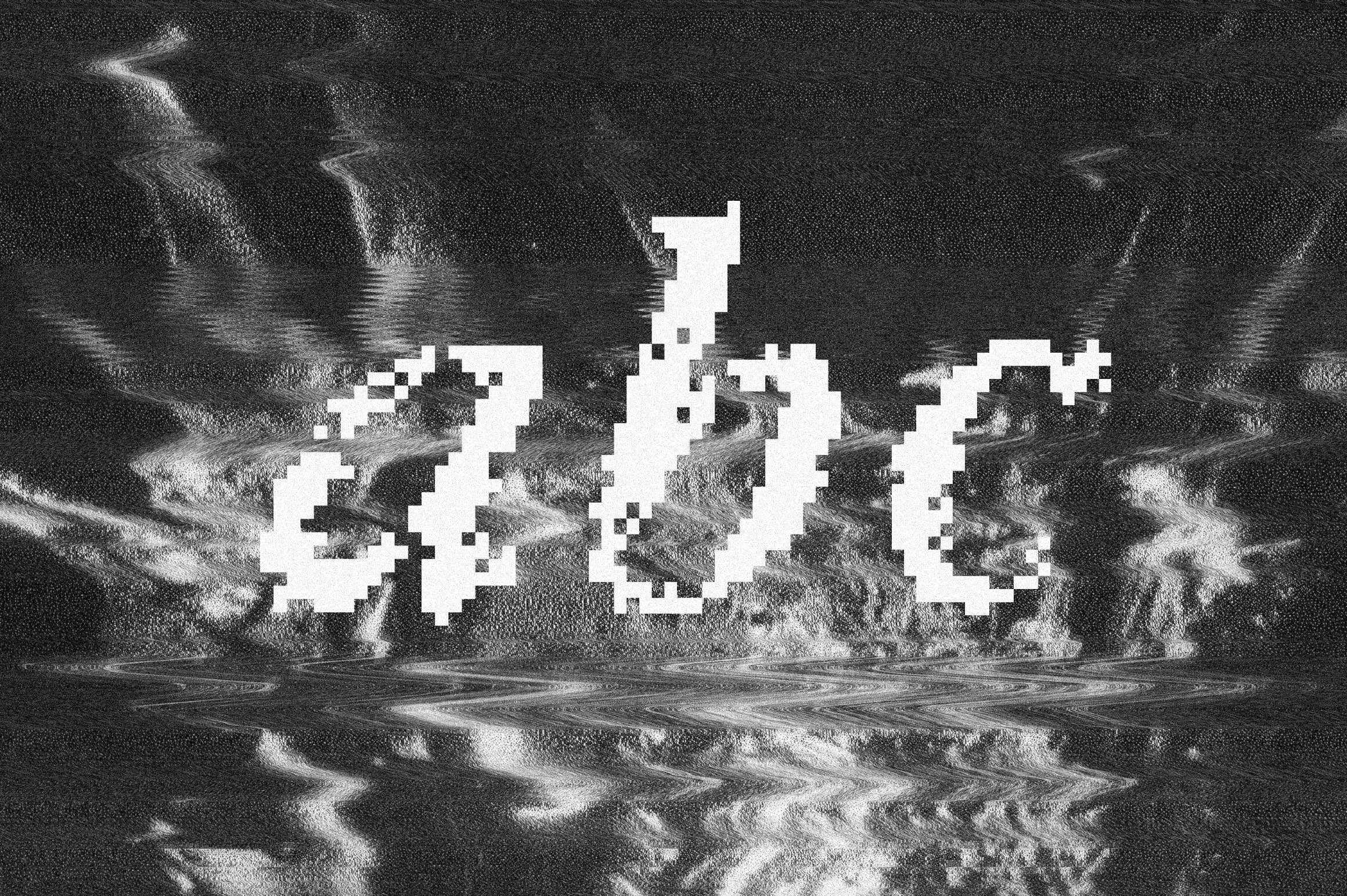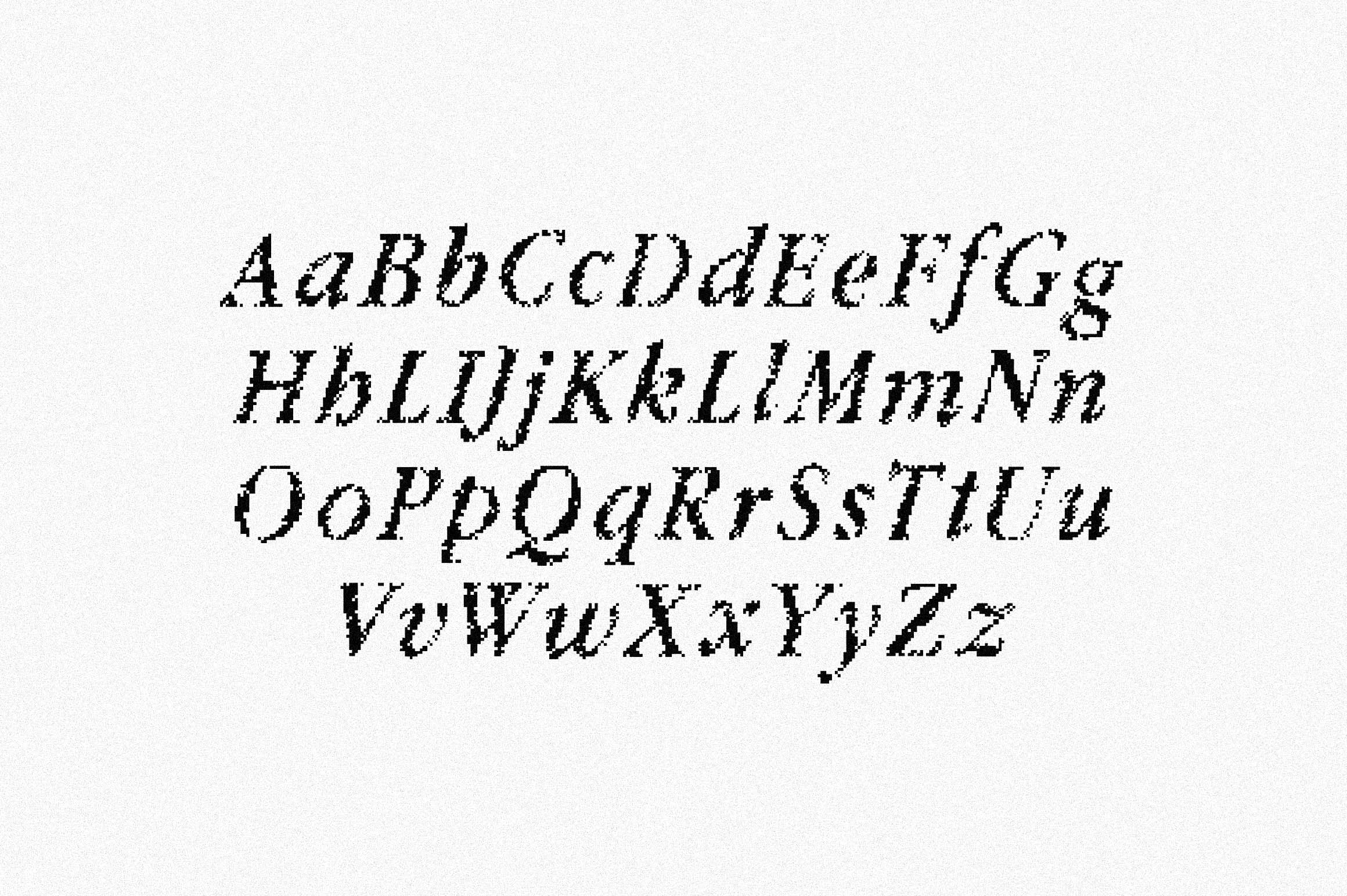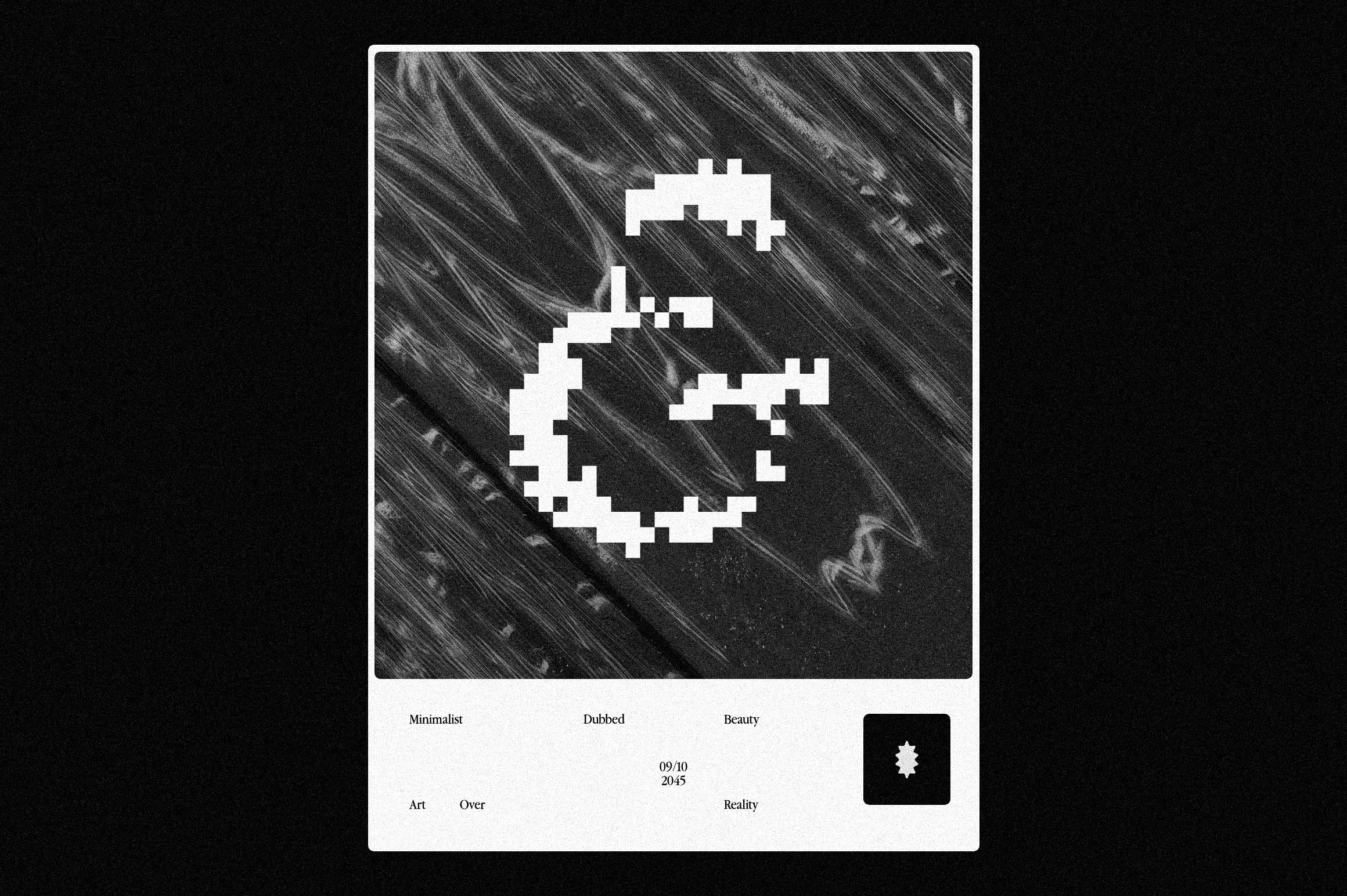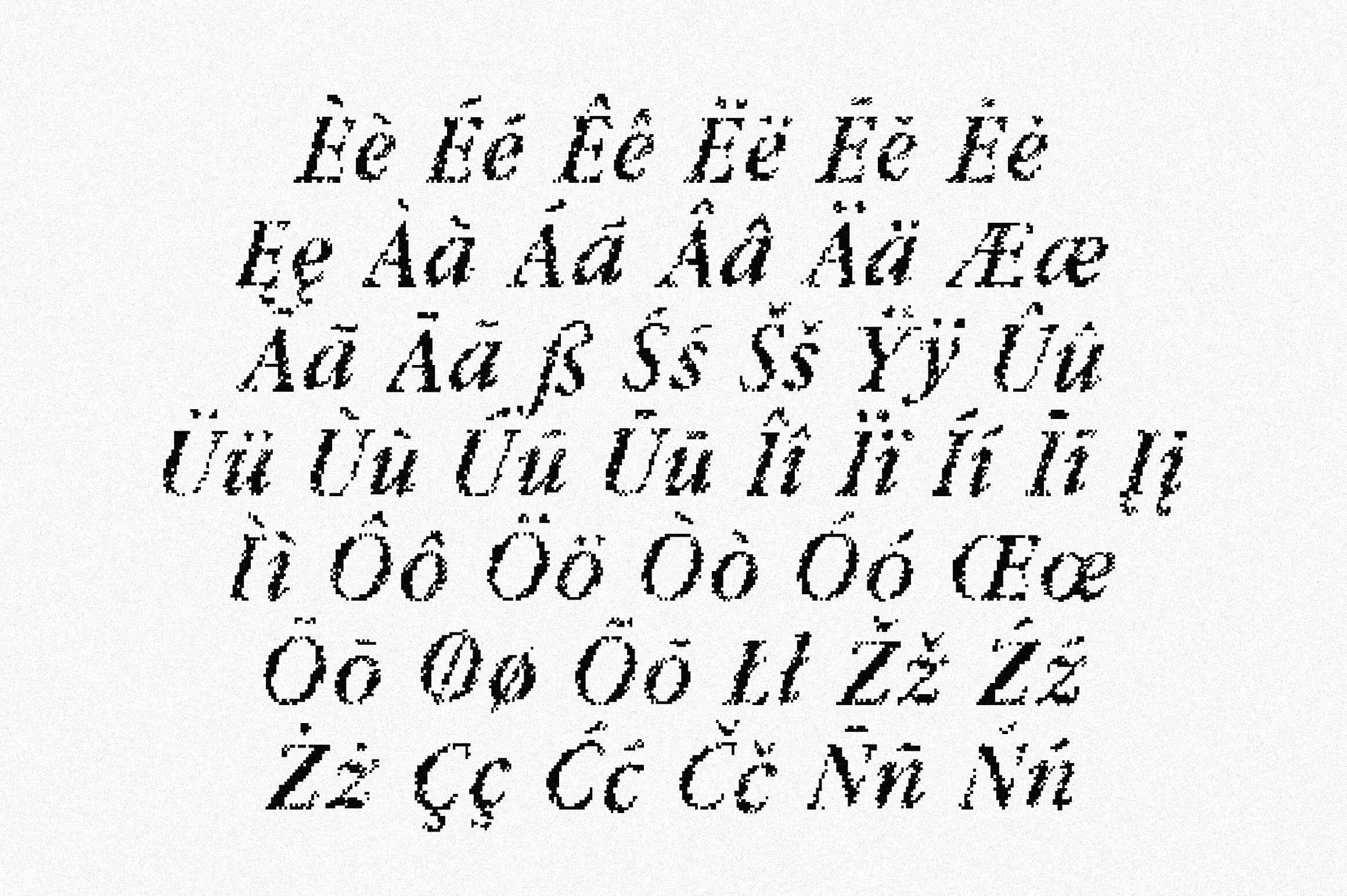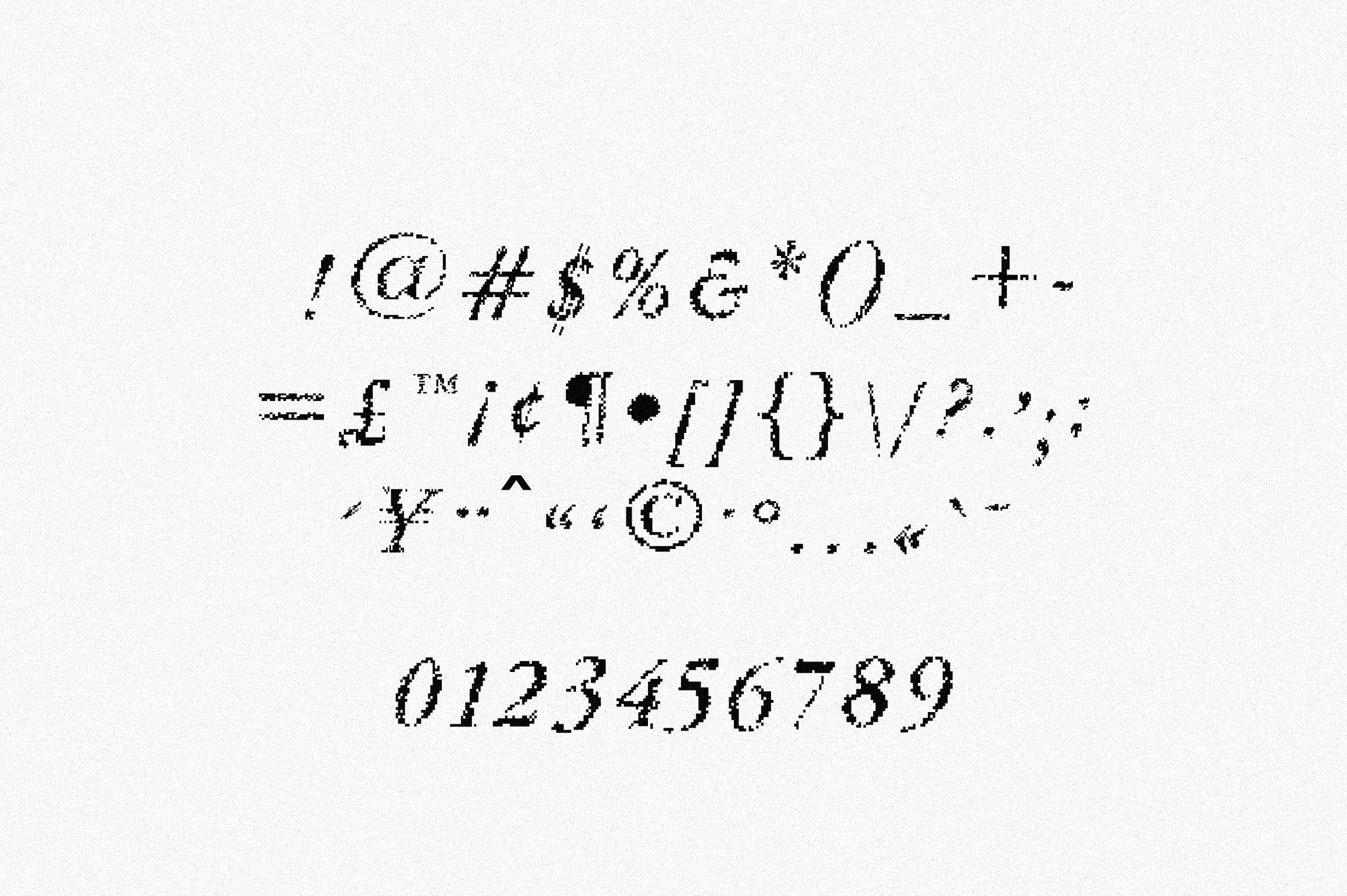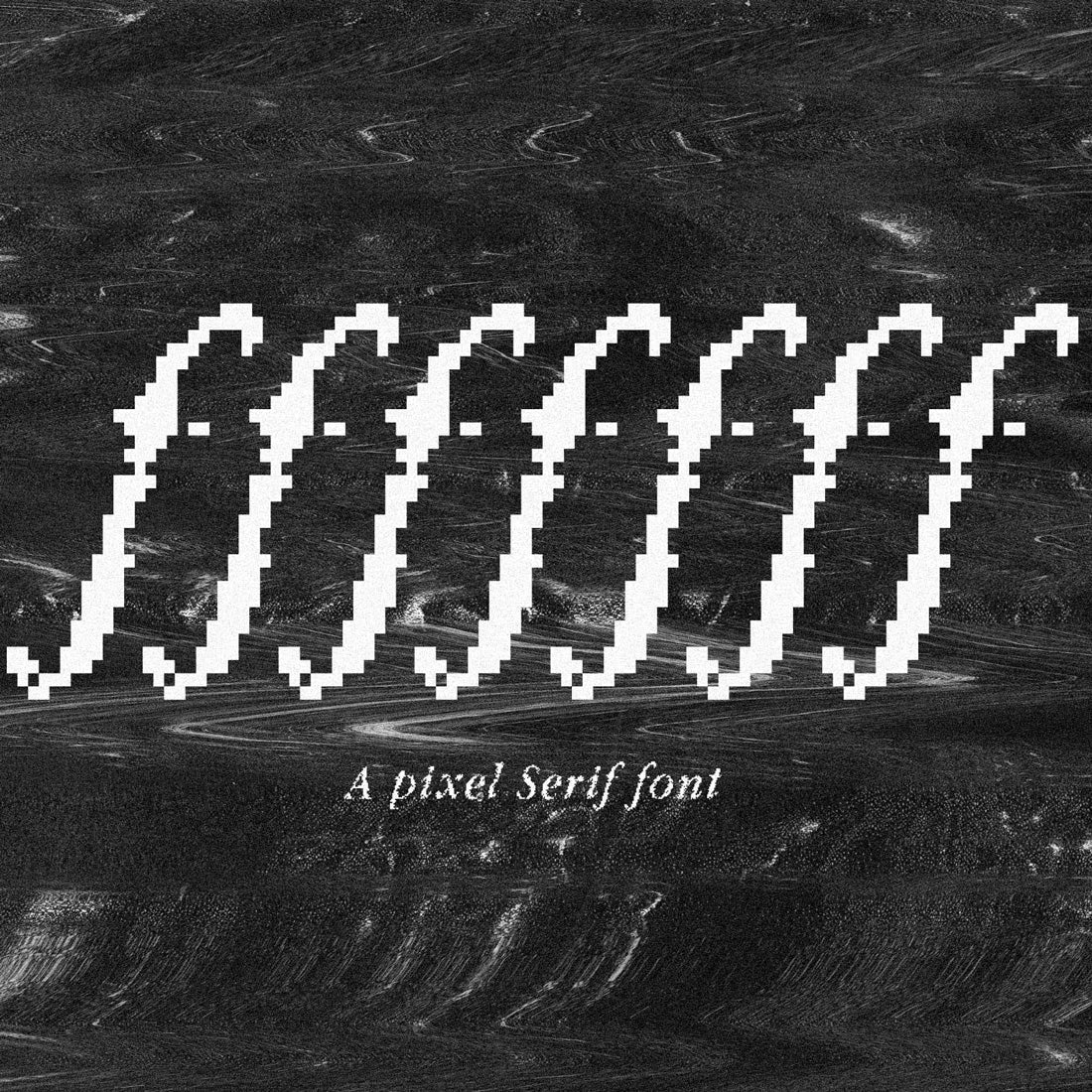
fffffff Pixel Serif Font
Introducing fffffff Pixel Serif Font
The typeface includes:
• fffffff Pixel Serif Font (uppercase & lowercase)
• Numbers & punctuation
• Foreign language support
The fffffff Pixel Serif Font is a classic, old-school typeface that comes in TTF and WOFF formats. It includes uppercase and lowercase letters, numbers, punctuation, and supports foreign languages.